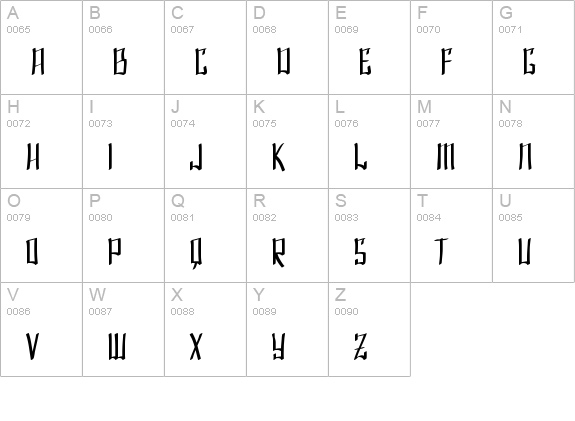
SF Shai Fontai Font Details
SF Shai Fontai is a stunning and versatile font that encapsulates the essence of modernity and elegance. Its sleek and sophisticated design makes it perfect for a wide range of creative projects, from branding and advertising to web design and typography. The font features smooth lines and beautifully crafted letterforms that effortlessly blend together to create a harmonious visual experience. What makes SF Shai Fontai even more enticing is that it is available for free download at FontsMarket.com. Yes, you read that right – this incredible font can be yours without spending a dime! FontsMarket.com is a trusted source for high-quality fonts, and they are generously offering SF Shai Fontai as a free download, enabling designers, artists, and enthusiasts to unleash their creativity without any financial barriers. Whether you are a professional designer or a hobbyist, SF Shai Fontai provides endless possibilities to elevate your projects to new heights. Its versatility allows it to seamlessly adapt to different design styles and contexts, making it a valuable asset in any creative endeavor. From eye-catching logos to captivating headlines, this font will undoubtedly make a lasting impression on your audience. In addition to its aesthetic appeal, SF Shai Fontai also boasts excellent legibility, ensuring that your message is delivered clearly and effectively. Its carefully crafted letterforms and generous spacing make reading effortless, enhancing the overall user experience. Whether it's used for print or digital media, SF Shai Fontai guarantees optimal readability in any setting. So why wait? Take advantage of this amazing opportunity and download SF Shai Fontai for free at FontsMarket.com. Unleash your creativity, elevate your designs, and make a bold statement with this exceptional font. Join the countless designers who have already fallen in love with SF Shai Fontai and discover the endless possibilities it offers.